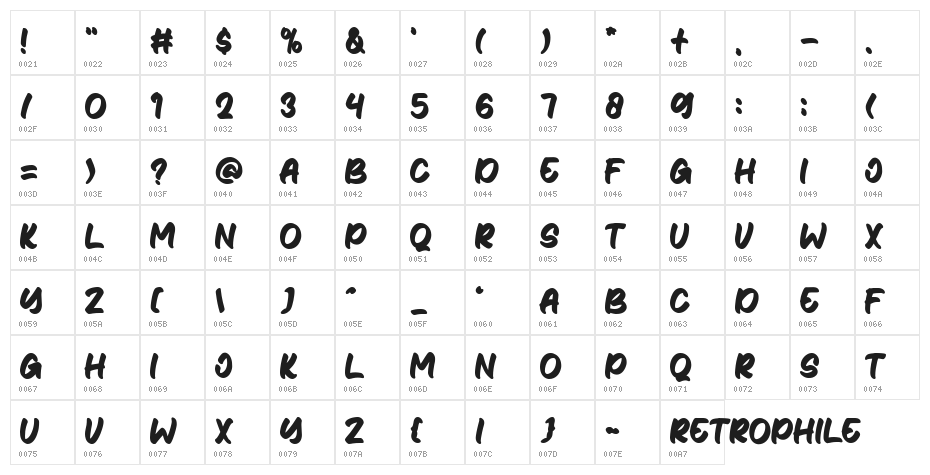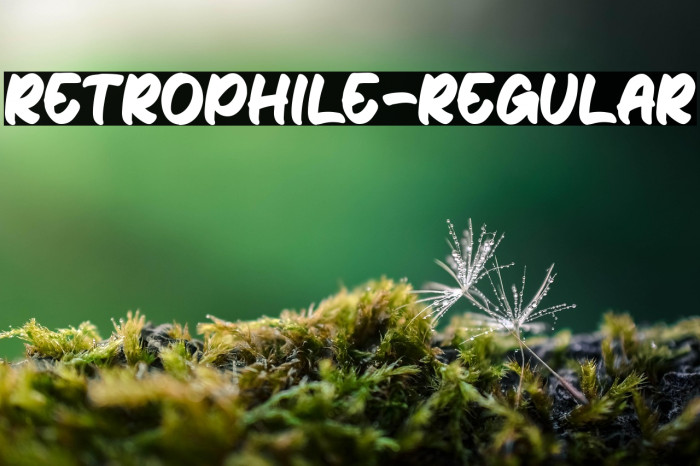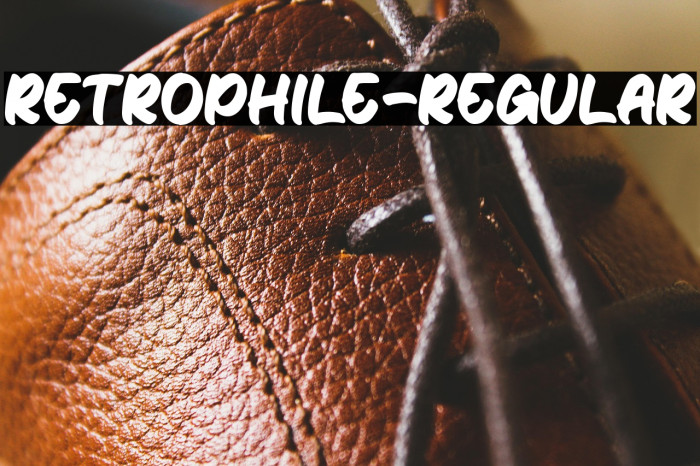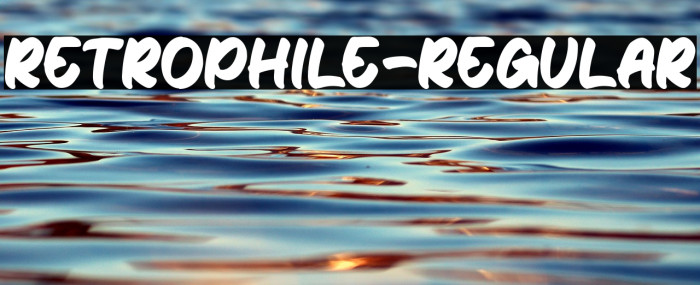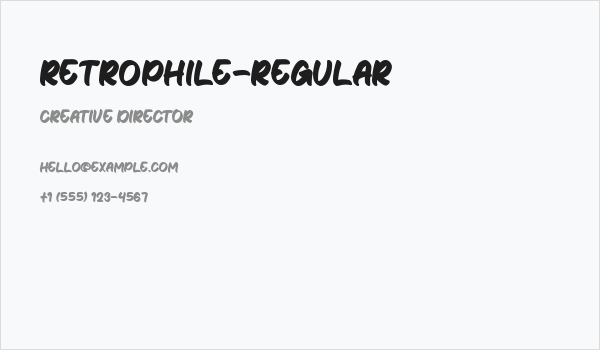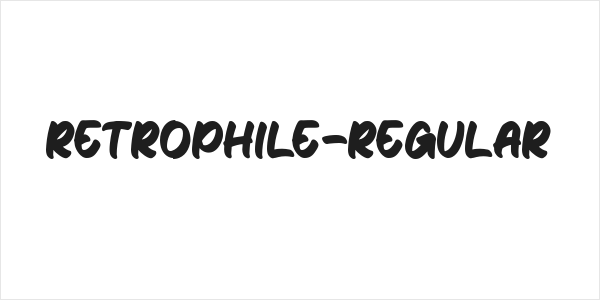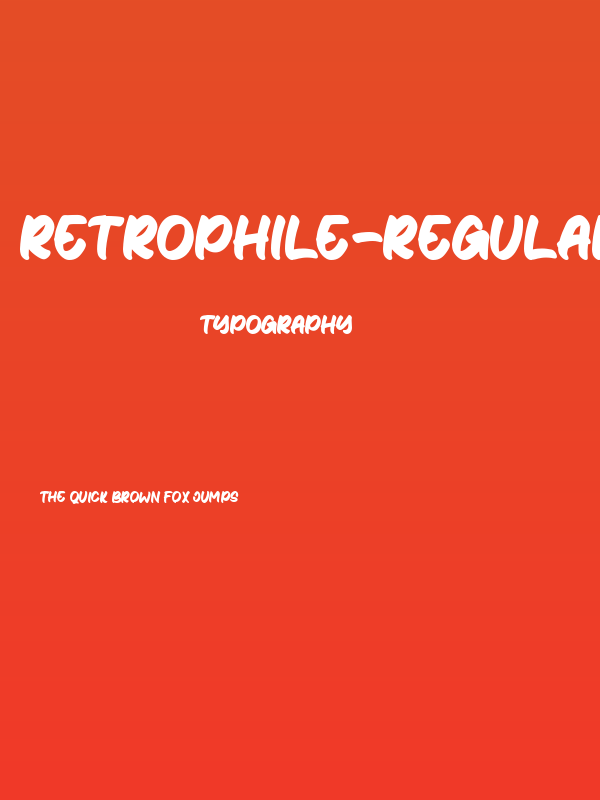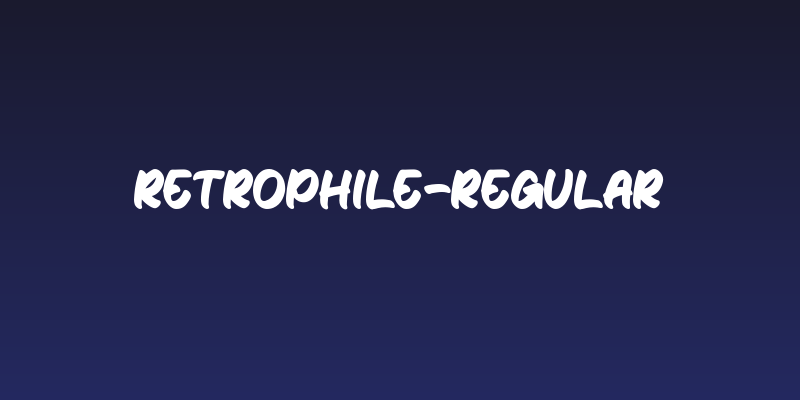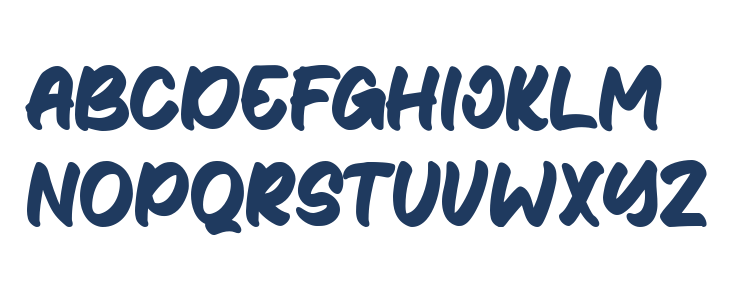
Retrophile-Regular Font
Retrophile-Regular Description
This font features a bold, playful style with a handwritten appearance. The letters are rounded and slightly slanted, giving it a dynamic and energetic feel. The strokes are thick and consistent, creating a strong visual impact. The characters are closely spaced, enhancing the compact and cohesive look. This font is ideal for projects that require a fun and informal touch, such as posters, invitations, or branding for creative businesses. Its unique style makes it stand out, while still maintaining readability.
| Proposed Projects | Ideal for posters, invitations, and creative branding. |